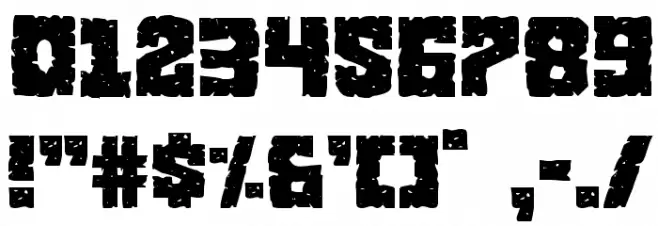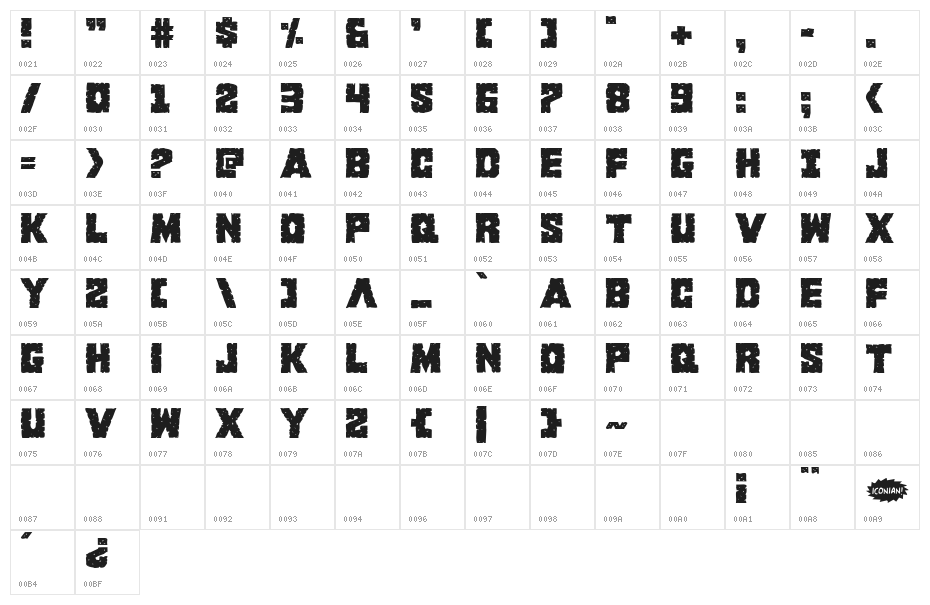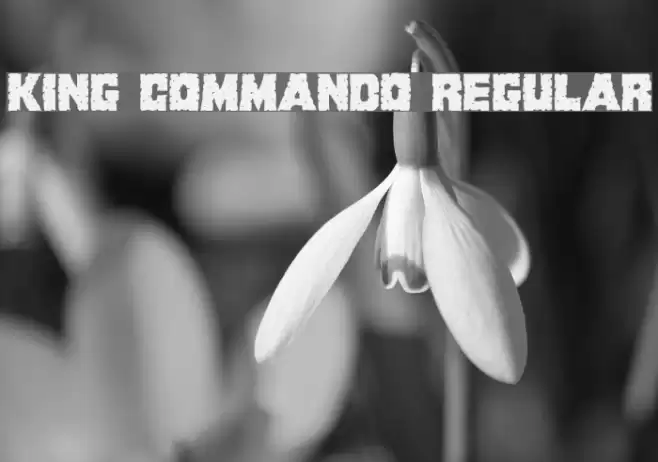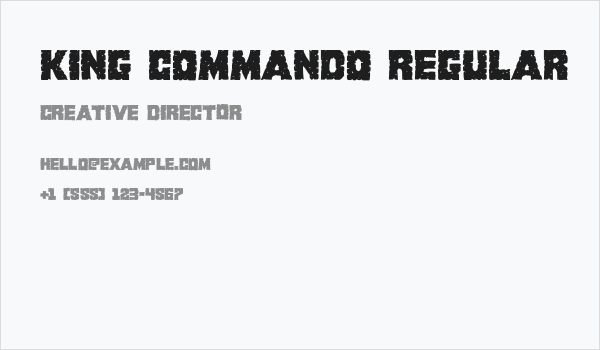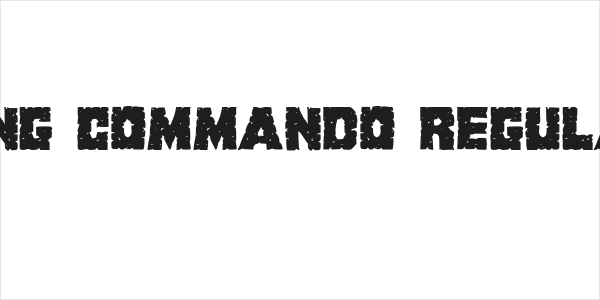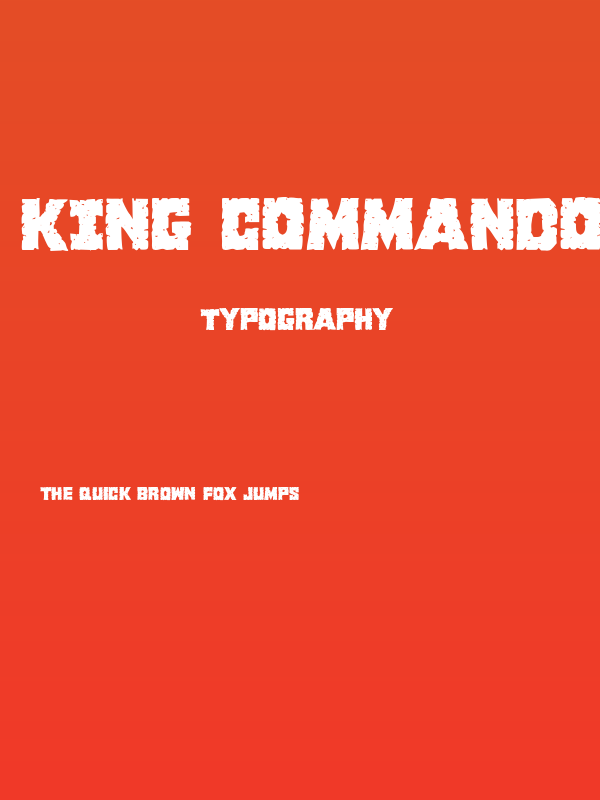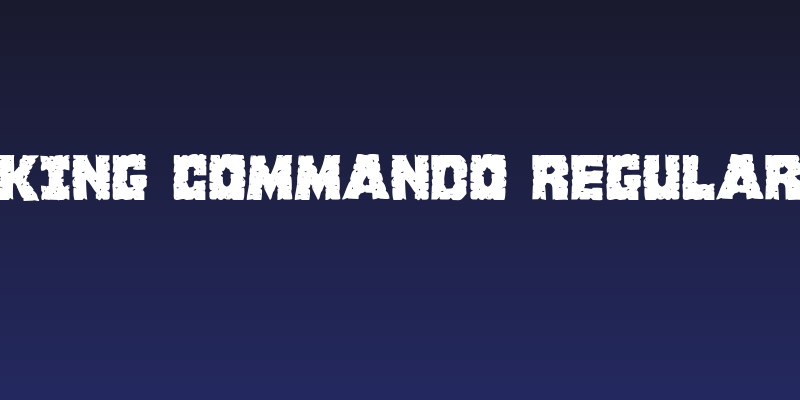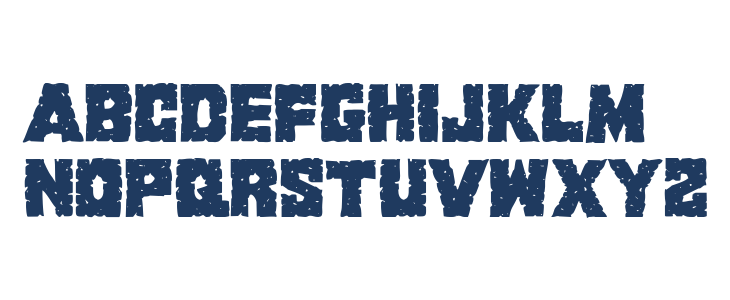
King Commando Regular Font
King Commando Regular Description
This font features a bold, rugged design with a distressed texture that gives it a gritty, military-inspired appearance. The characters are blocky and robust, with irregular edges that suggest a worn or weathered look. The uppercase and lowercase letters maintain a consistent style, emphasizing strength and durability. Numbers and special characters follow the same aesthetic, making the font suitable for impactful and bold statements. Its unique texture and strong presence make it ideal for projects that require a commanding and authoritative visual impact.
| Proposed Projects | Ideal for military-themed posters, video game titles, action movie graphics, and branding that requires a strong, impactful presence. |